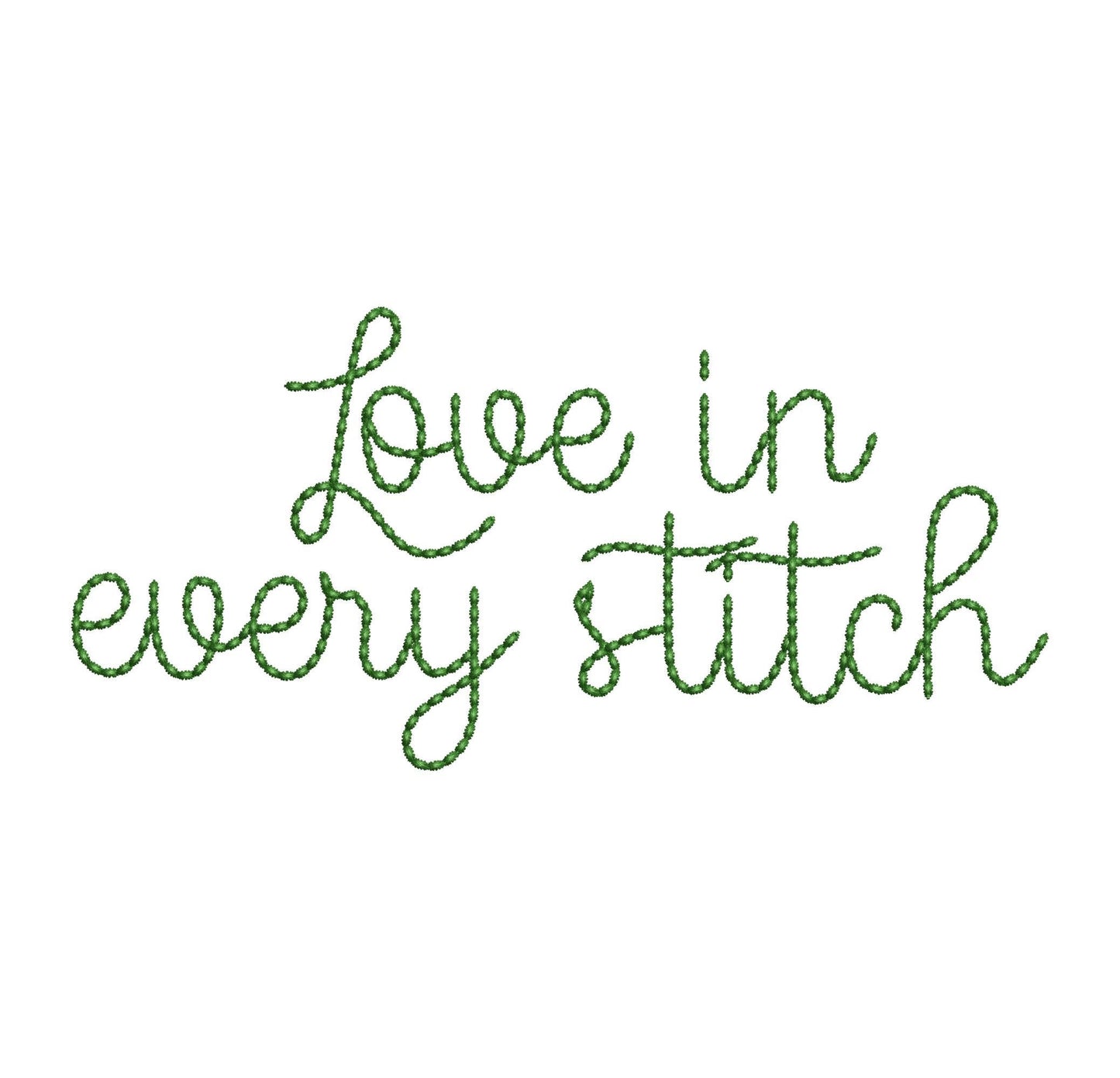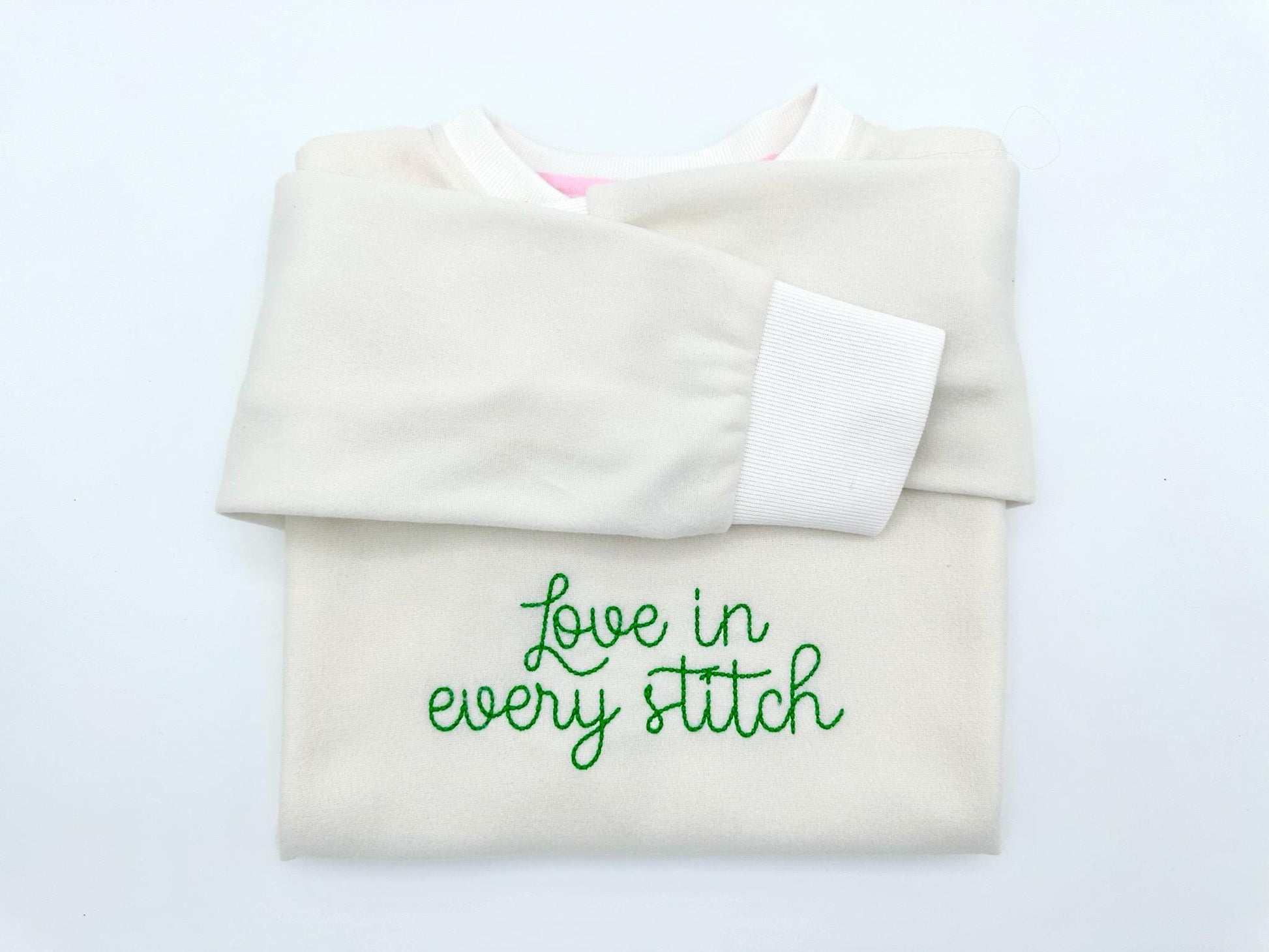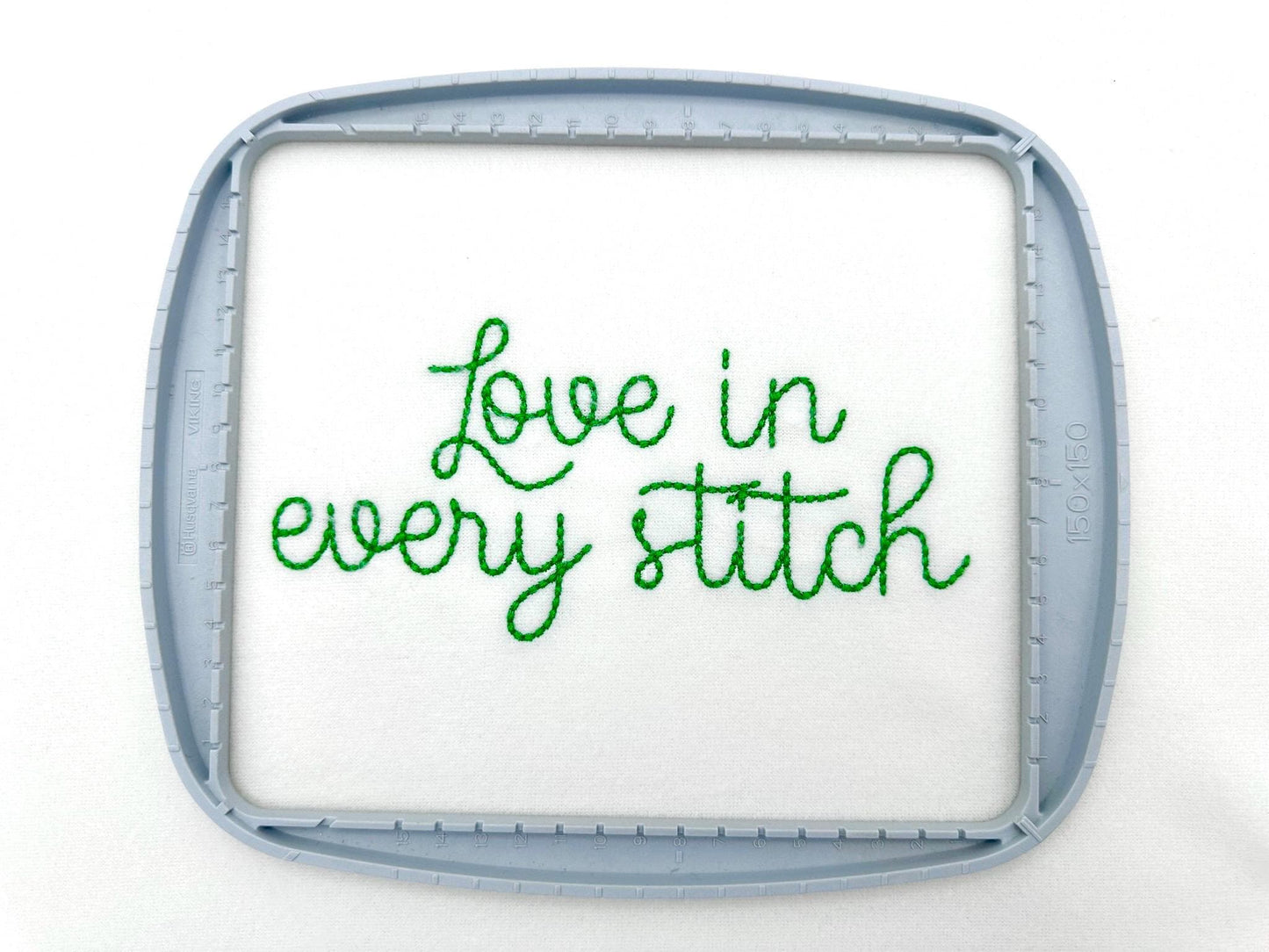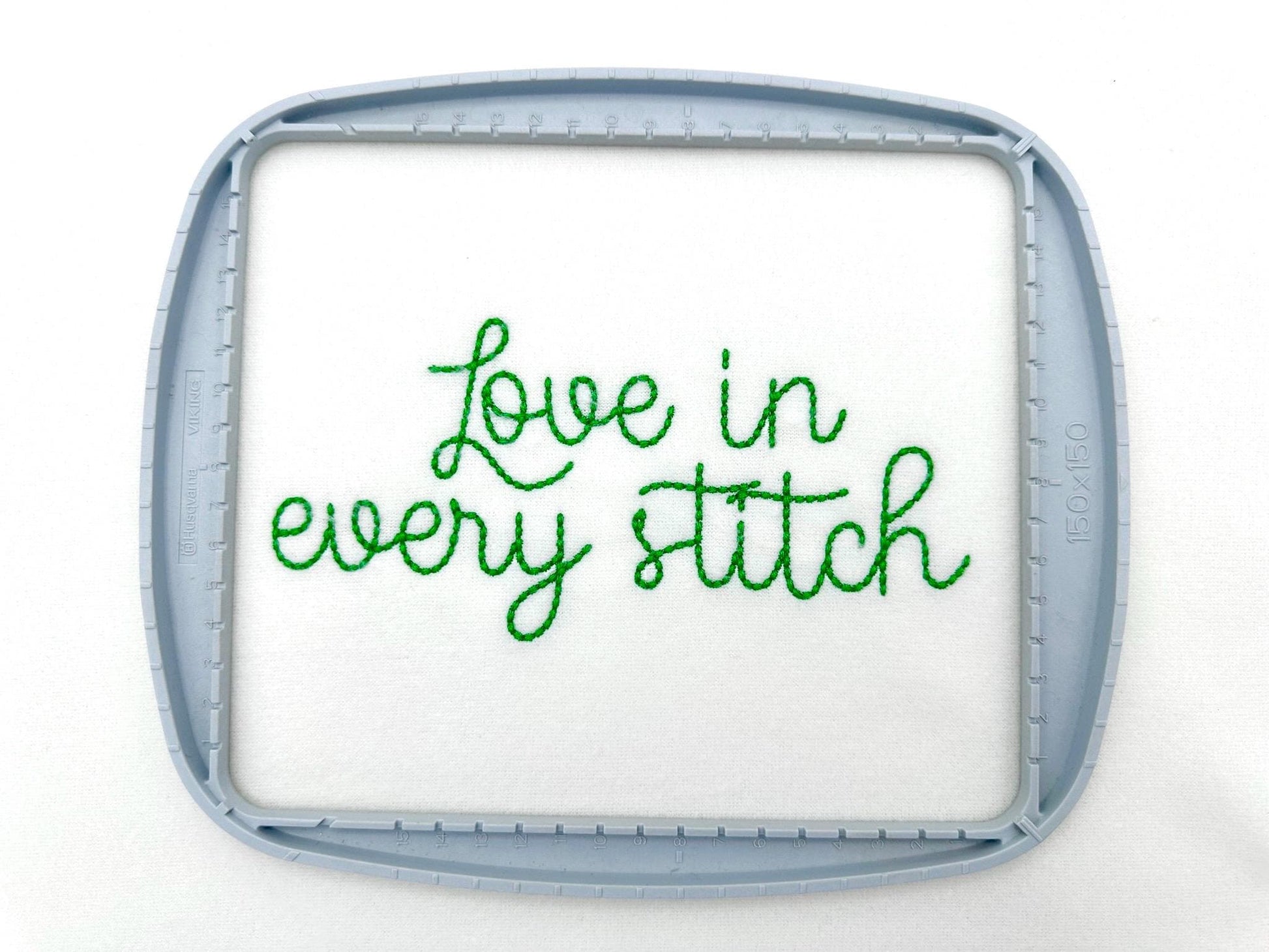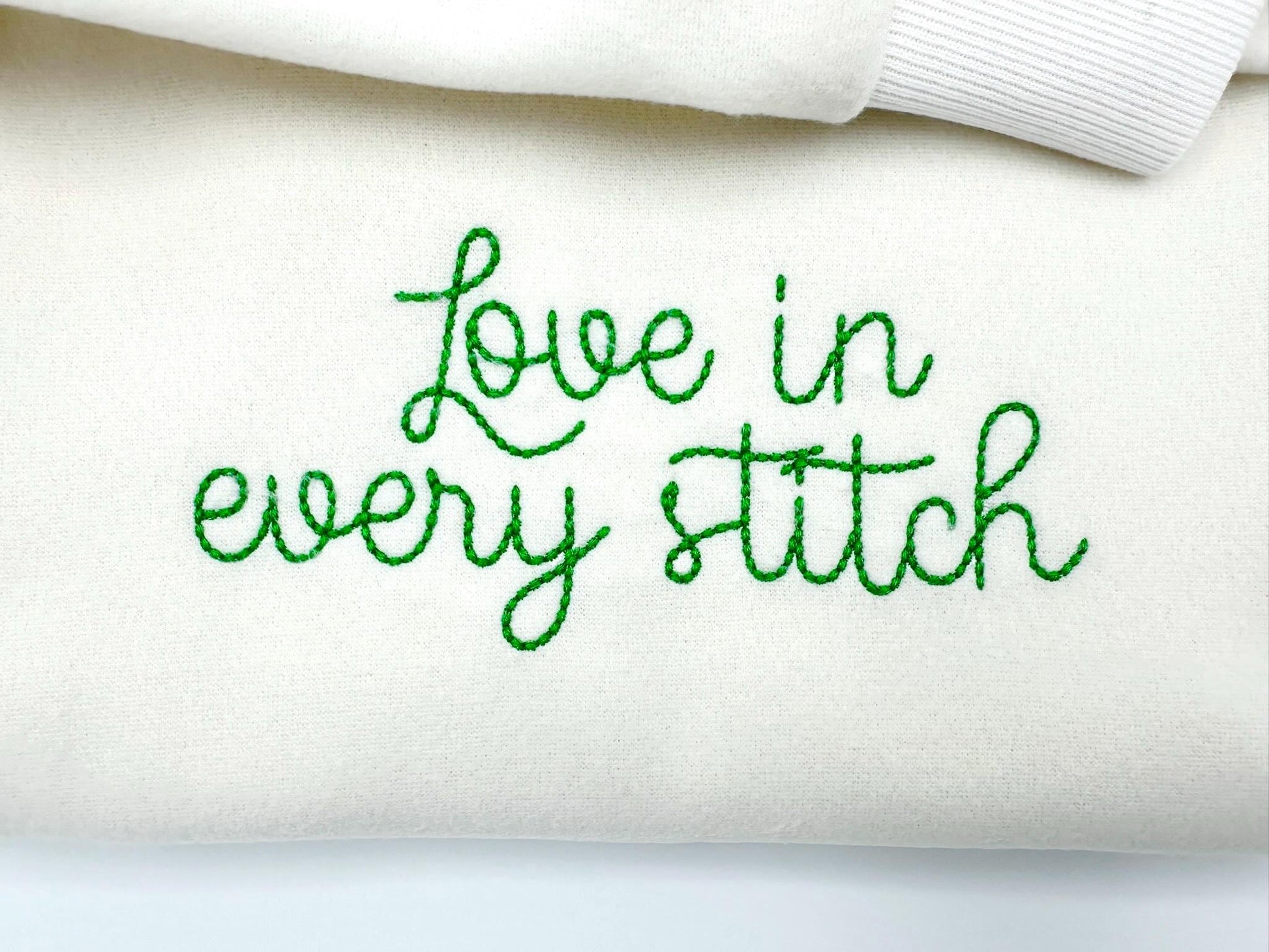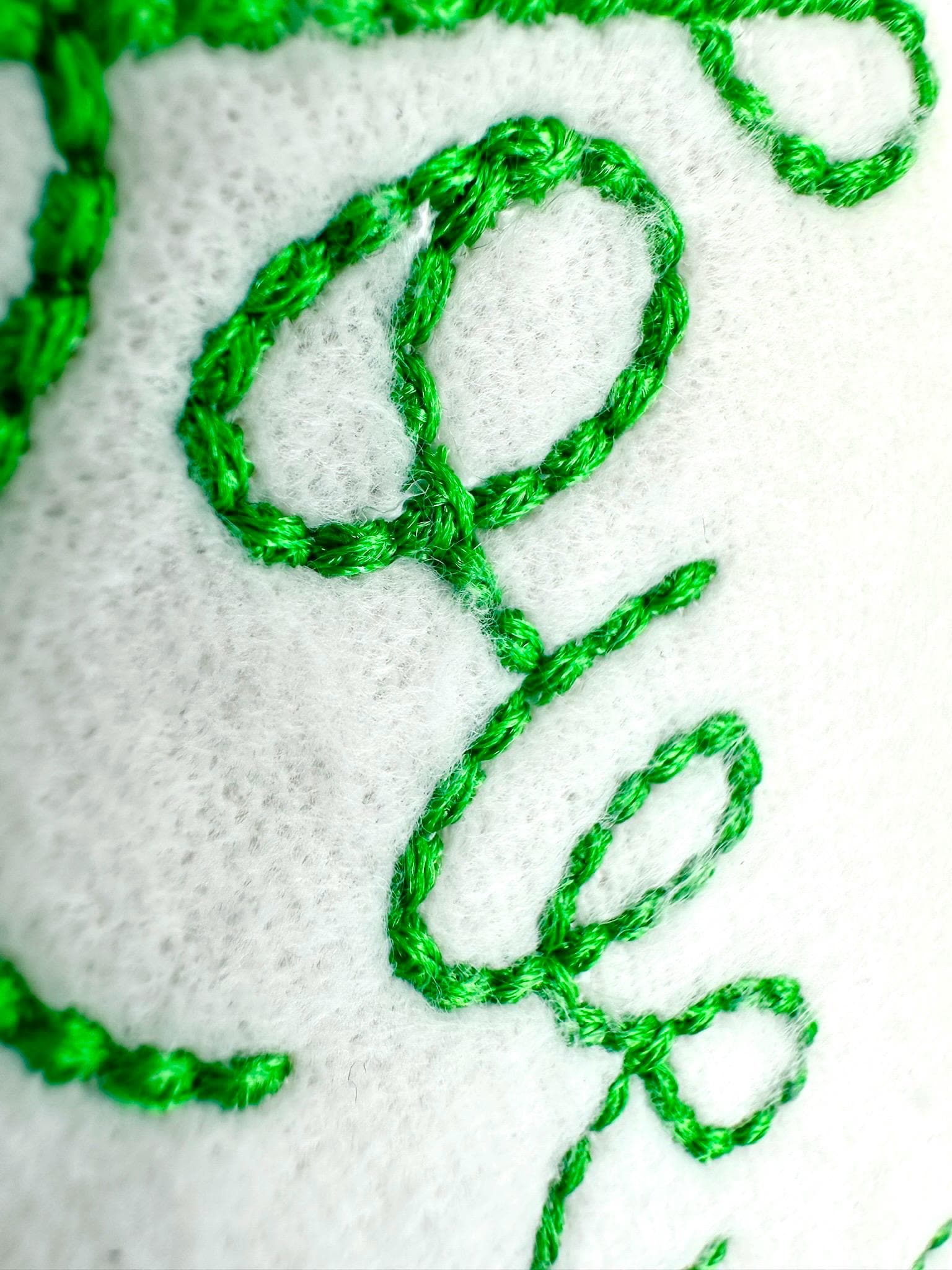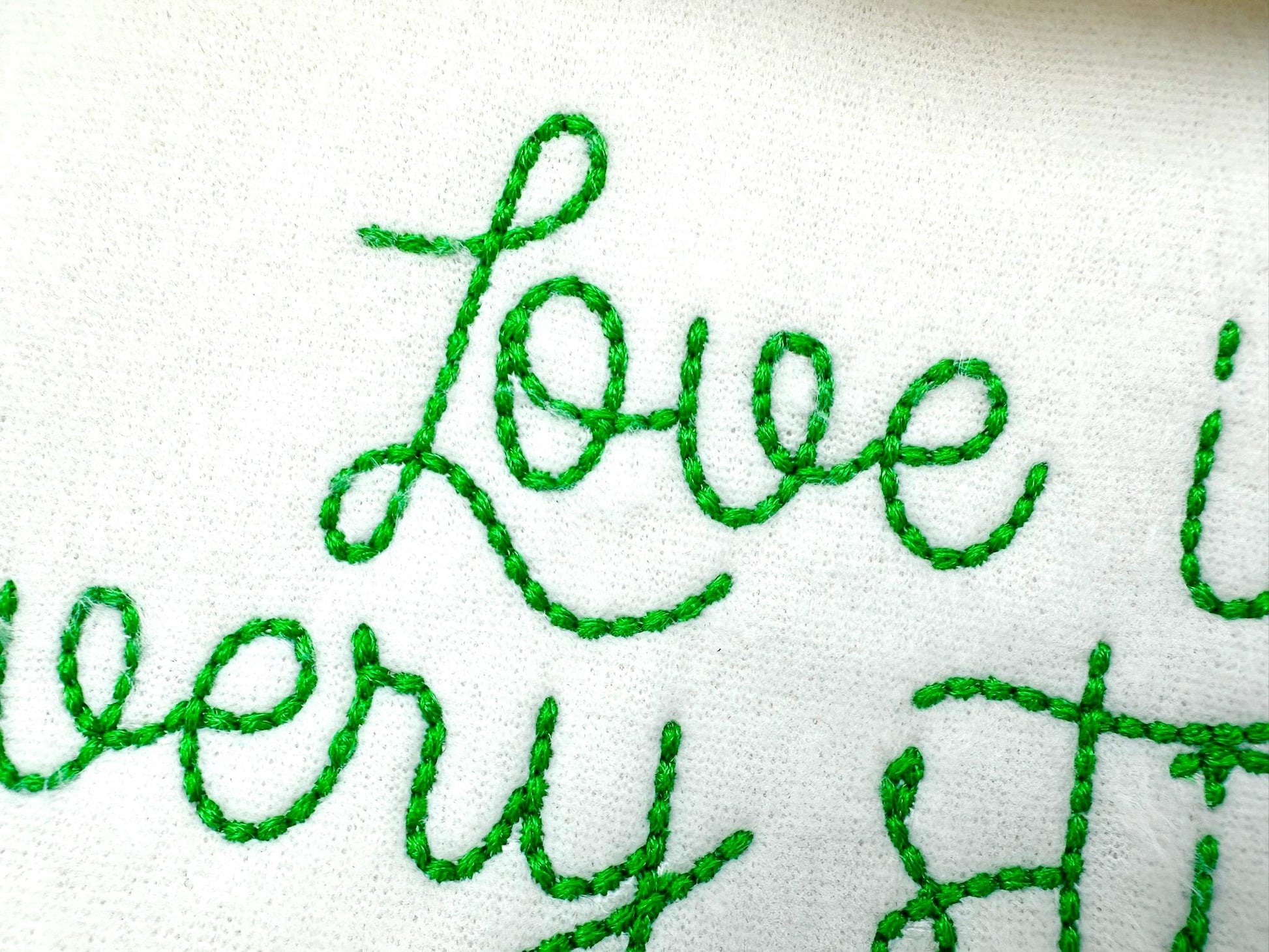
Hand Stitch Effect Font
Or click to open the linkA handwritten script font that looks hand-stitched. Sweet for kids' names, monograms and short words.
The letters come in five sizes: 1, 1.3, 1.6, 2.1 and 3.3 inches. A light stitch gives the script the look of hand embroidery. Includes uppercase and lowercase letters, numbers 0 to 9 and punctuation.